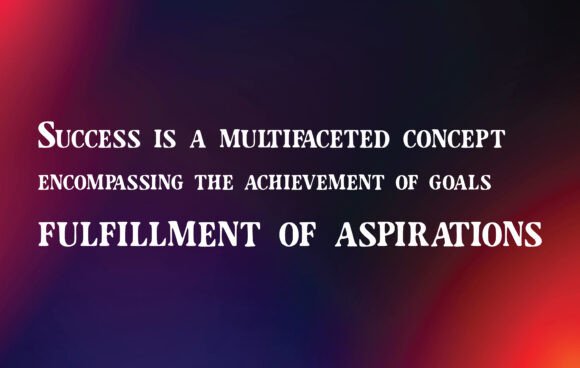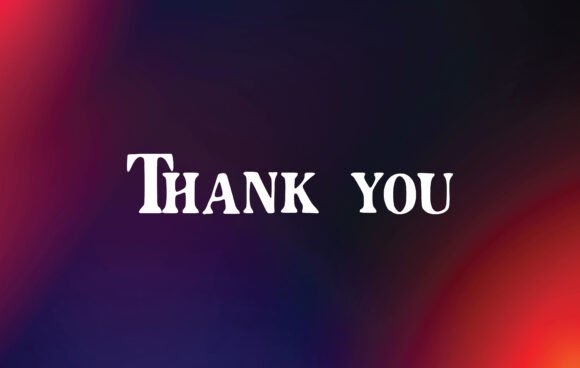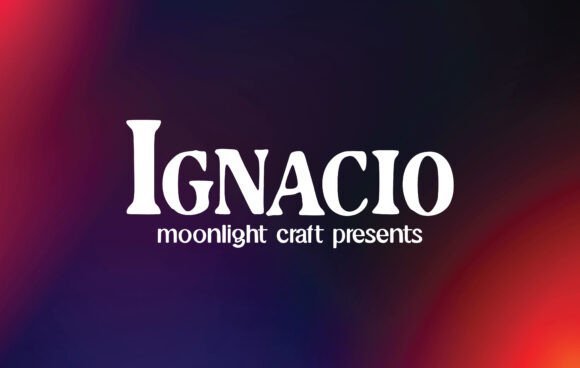
Introduction to Ignacio Font
Ignacio is a lovely and beautiful font.
Key Features of Ignacio Font
Why Choose Ignacio Font?
Ignacio Font offers exceptional quality and versatility, making it a valuable addition to your design toolkit. Whether you’re creating for personal projects or commercial use, Ignacio Font delivers professional results.